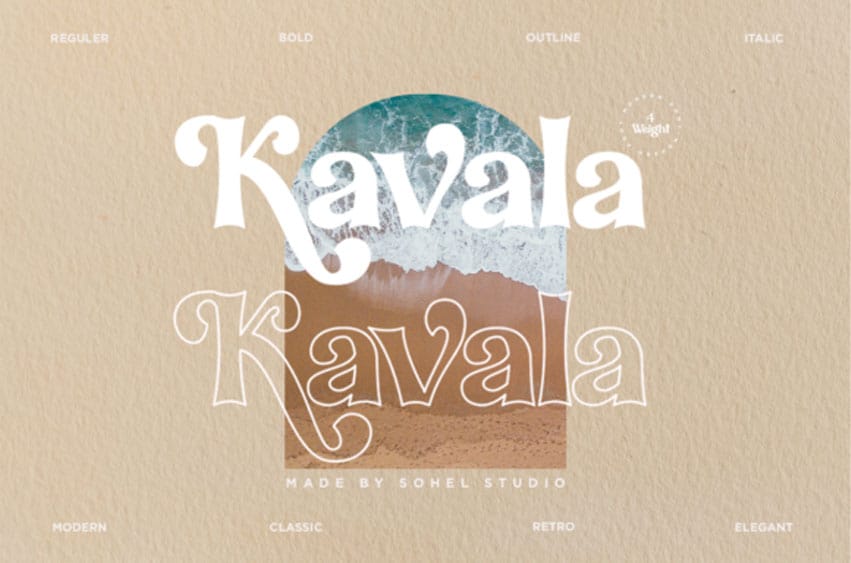
Kavala Font is a distinct and uniquely designed serif font. It is PUA encoded, which means you can access all of the glyphs and swashes with ease!
Fall in love with its incredibly versatile style and use it to create spectacular designs!